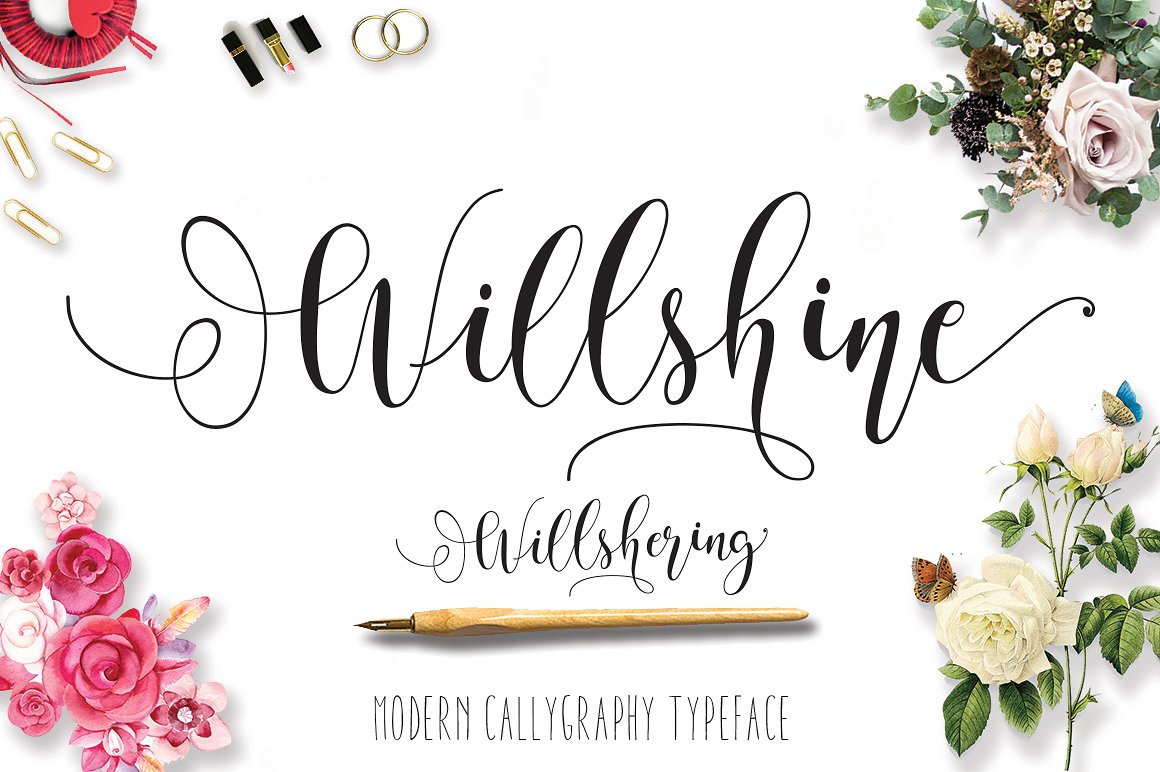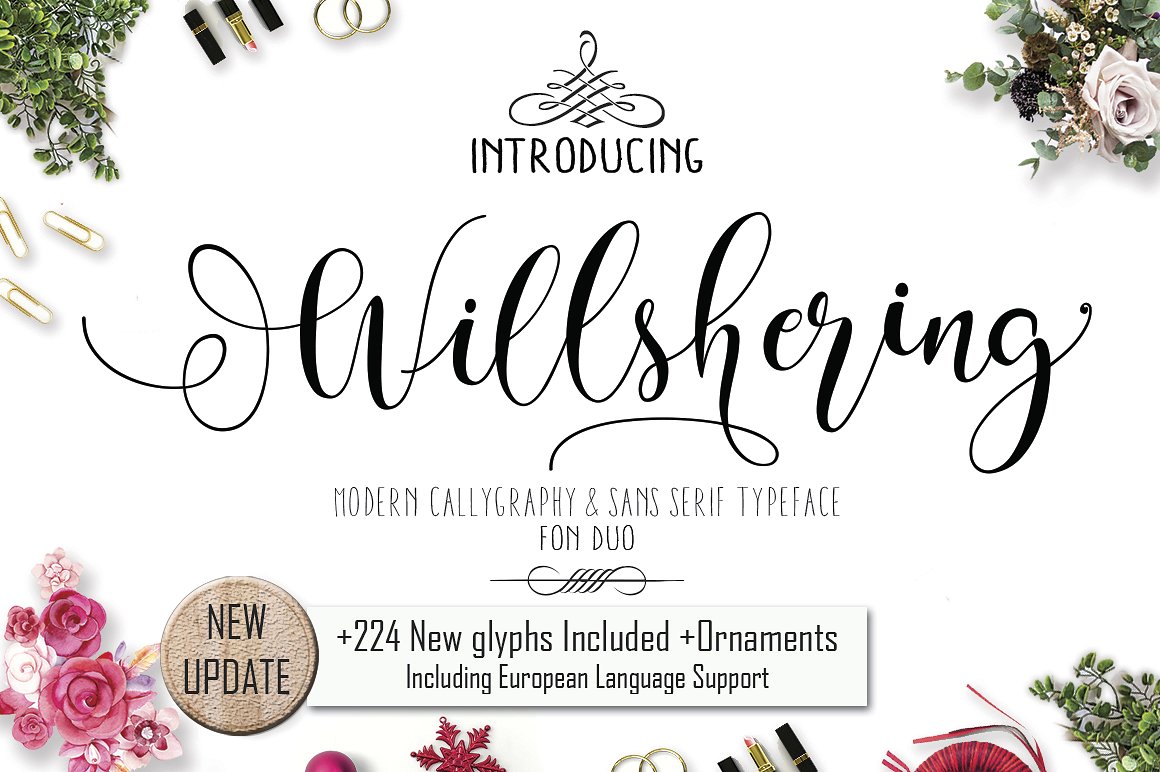
Will Shering Script
Will Shering Script Font
Introducing the newest else is so beautiful and comes with two very elegant fonts that are designed to compliment each other perfectly. Willshering script + Willshering sans & Willshering Ornaments New Update from the 558 glyph become 783 glyph overall Willshering script are a hand calligraphy, smooth, modern and clasik, calligraphy wavy, which was created to meet the needs of your next design project.